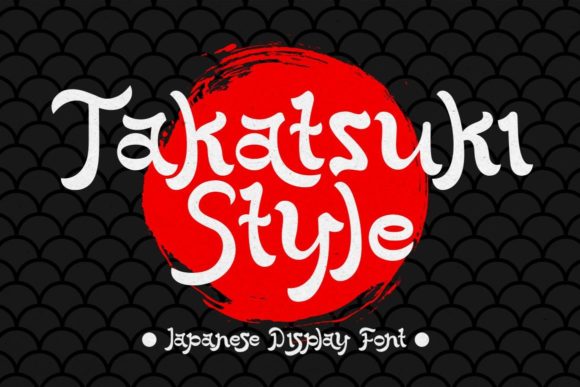
In a world where visual impact reigns supreme, where every pixel tells a story, lies the Takatsuki Style Font, a display font that transcends boundaries and captivates hearts. Immerse yourself in a mesmerizing blend of ethnicity and culture, where each glyph dances with elegance and grace. Embrace the essence of Japan, a land steeped in tradition and innovation. Let Takatsuki Style Font be your canvas, your brush, your gateway to artistic expression.
With Takatsuki Style Font, your designs will radiate with a charm that transcends time. Whether you're a culinary connoisseur crafting an authentic Japanese restaurant menu, a fashion visionary designing exquisite clothing lines, or an artist seeking inspiration from the Orient, Takatsuki Style Font is your muse. Unleash your creativity, let your imagination soar, and witness your designs transform into masterpieces.
Beyond its aesthetic allure, Takatsuki Style Font is a font of convenience. PUA-encoded, it grants you effortless access to a world of glyphs and swashes, empowering you to weave intricate typographic tapestries. With Takatsuki Style Font, the possibilities are limitless.
So embark on a journey of visual artistry, where every stroke of Takatsuki Style Font tells a tale. Elevate your designs, captivate your audience, and leave an indelible mark on the world. Let Takatsuki Style Font be your beacon, guiding you toward creative triumphs.